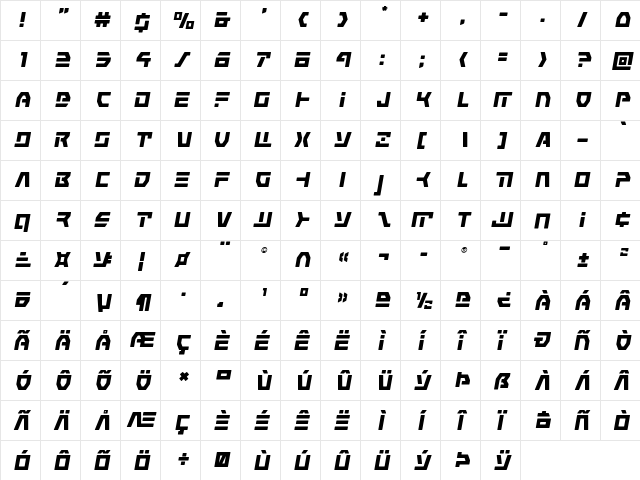
Command Override Title Italic Italic
Design Context for Command Override Title Italic Typeface
Command Override Title Italic is a composed and adaptable typeface that performs quietly and consistently across a wide range of design contexts. The slanted form adds forward momentum and visual energy.
Pro Tip: Use Command Override Title Italic for emphasis, pull quotes, and subheadings where its slanted energy can add rhythm to the layout.